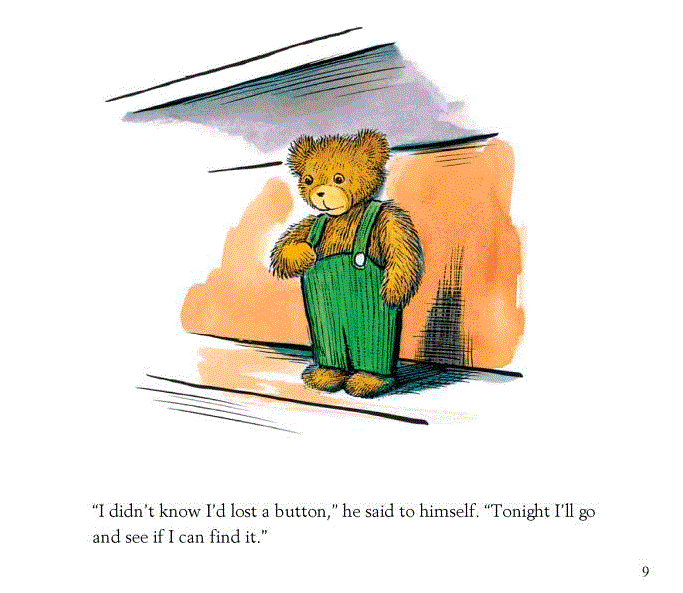
I grew up with children’s books, and truly loved the stories. Every evening, a favorite book of mine renewed a spark of imagination before bedtime. Story time was the fun part of school while delivering life’s lessons and eventually encouraging me to read. Those books provide me the adventure I craved, allowed me to become a hero for a day and granted me permission to visit new worlds in my daydreams.
The books also gave me and my classmates our very first taste of typography and illustration. Those pictures welcomed us in, but it was the words which really hooked us and carried us away. Some books were easier to read, and some more difficult, depending on our age and reading ability. Word length, character size, and quantity of type versus white space on the page either created comfort or presented a challenge.
In the 70s, the time of my childhood, most of our classic children’s books were typeset in large typefaces from the classifications Humanist Serif (or Old Style) and Transitional Serif.
Both serif styles differ in calligraphic style and stroke contrast, but they were both used in children’s books for their similar legibility.
These two classes were popular for book typesetting because they are easy to read, mainly attributed from the following five characteristics.
- High x-height The x-height of a character refers to the visual size of the typestyle, not the point size. Compare the heights of the lowercase ‘x’ from a Humanist Serif to another typeface, and that will give you an idea of how ‘large’ and legible it is. Both of these are Transitional Serifs, but Baskerville is easier to read than Mrs. Eaves, because of its high x-height.
- Large counters Another indication of letterform size is in the size of the counters. Letters containing closed counters include A, B, D, O, P, Q, R, a, b, d, e, g, o, p, and q. Open counters have apertures (open “mouths”) and exist in the letters c, f, h, i, s and so on. When the counters are larger, they are easier to read.
- Wide bracketed serifs Brackets are the curved connection between the stem and serif. Think of a wall being a stem and a shelf being a serif. A bracket is used under the shelf to hold it up. Wide serifs with brackets help the reader identify the letter.
- Double-story allographs Allographs are considered variants of a letter. The lowercase versions of letter g and letter a have two types of variants. The one we learned how to write in grade school penmanship is single-story. The alternative is double-story. The double-story variants are easier to read because there’s more visual indicators in the letterform.
- Moderate contrast in stroke variation due to calligraphic origins When there is some contrast and stroke distinction in the letterform, it aids in readability.
The overall layout of the text pages implies the reading level. Large format, type size, white space and illustrations will visually communicate that the book is for beginners. Smaller page size, smaller type size and dense copy with little or no visuals will appeal to older readers. When a child opens the book, they know if they can read it or not, before reading any of the words.
The book Corduroy by Don Freeman (1976) is about a bear who wanders around a department store after closing time. It was a favorite of mine when I was very young. Looking at the text page, the copy is set in a classic Humanist typeface called Palatino, which has a large x-height and wide counters. Only one or two sentences are set at a time, which indicates the book is for toddlers.
Early readers love Little Golden Books. I used to carry my 12-book box set around the house and would pull out the gold-spined volumes one-by-one. One of the originals, The Poky Little Puppy by Janette Sebring Lowrey (1942) is also set in a Humanist typeface, Garamond.
Charlotte’s Web by E.B. White (1952) is a book written for tween readers. The page is set in Caslon, which has been classified both as Humanist and Transitional Serif.
Pull out your old books and take a look inside. Most of the classics were set in serif. And more recent ones, depending on their concept, might be set in sans serif. Either way, they probably have large x-heights, wide characters, and two-story allographs to keep kids reading.
Which books did you love as a child? Did they have memorable typesetting? I’d love to know what typography first influenced you as a young reader.